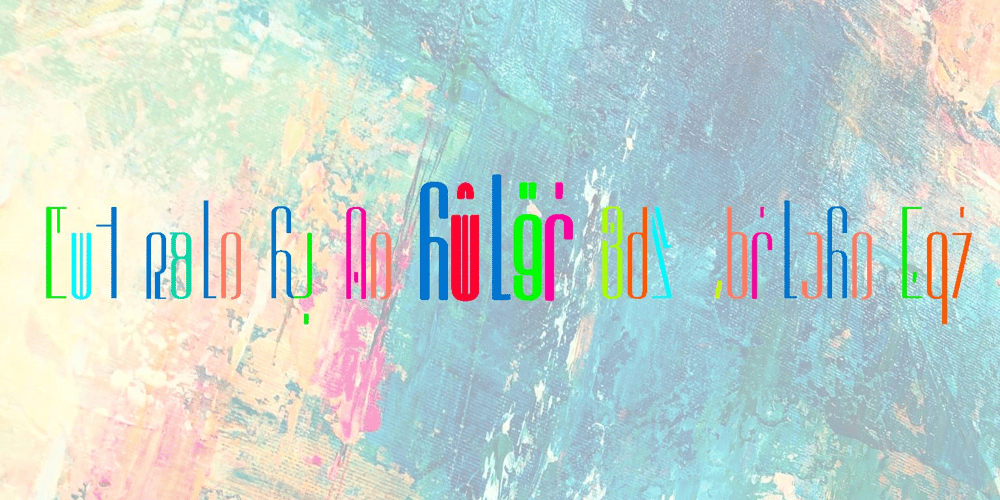
Naghashi Font Family was designed by Aria Fakhari and published by Fakharia. Naghashi contains 3 styles and family package options. Naghashi (نقاشی, Painting) is the first monospaced colorful font family designed for the proposed perso-arabic writing system.In contrast to conventional Arabic fonts, all five font styles within this family feature disconnection. Furthermore, the shapes of the capitalized (isolated) letters have been modified to engender a more consistent aesthetic.The naghashi LP (Less Point) light denotes the dot-reduced version, wherein glyphs containing two or more dots are substituted with new dotless shapes. It is important to note that, with the exception of the naghashi light style, all other styles utilize the reduced dots alphabet.The naghashi MC (Mixed Case) light emulates Latin fonts, enabling typists to toggle between lowercase and uppercase letters through a software shift key. This software shift feature can be activated or deactivated by inputting two consecutive Alef_Hamza_above/Alef_Hamza_below letters. more…The final two styles consist of the Small Caps (naghashi SC light) and All Caps (naghashi AC light) versions within this font family.Please be advised that additional related styles are available within the naghosh font family.The Latin component of this typeface family is the vibrant, monospaced iteration of the Dorsa font.